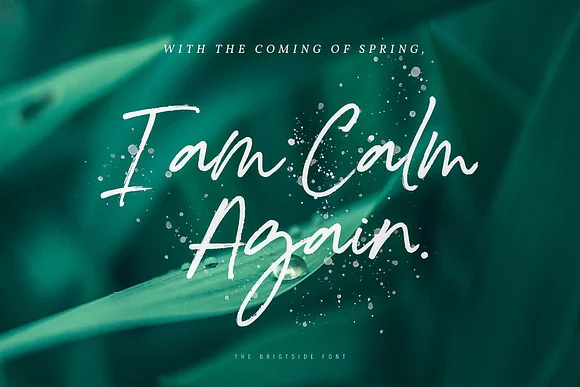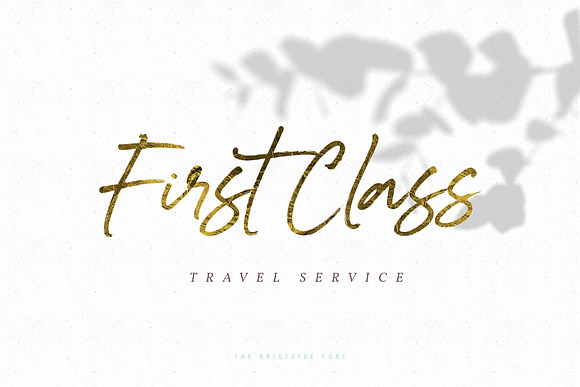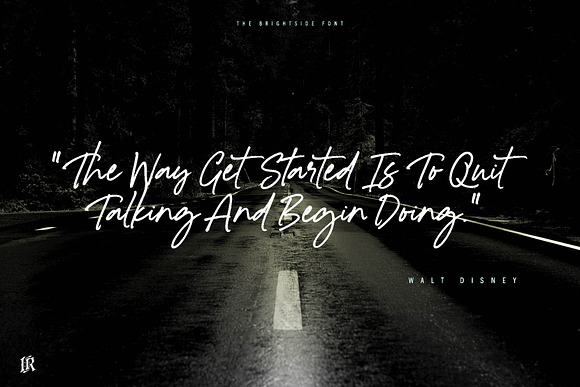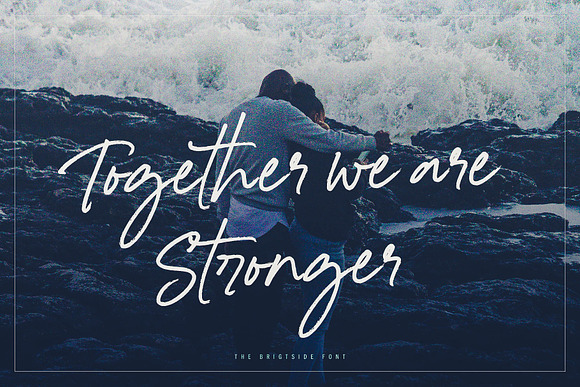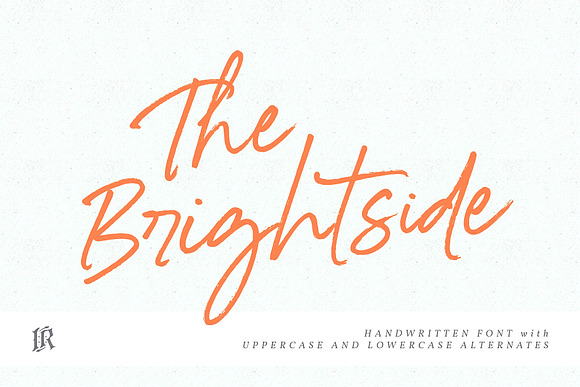
The Brightside Font
The Brightside Font is perfect for branding, greeting cards, social media graphics, poster designs, and lifestyle blogs. Its cheerful, clean, and modern style adds a positive and uplifting touch to any project.
What makes The Brightside Font exciting is its friendly, well-balanced letterforms that combine readability with a bright, contemporary aesthetic. The font’s design ensures your text radiates energy and optimism.
The The Brightside Font family includes Regular, Bold, Italic, and Light variations, giving designers flexibility to create harmonious and visually appealing typographic compositions.
For designers seeking a modern, versatile, and uplifting typeface, The Brightside Font is a perfect addition to any creative toolkit.